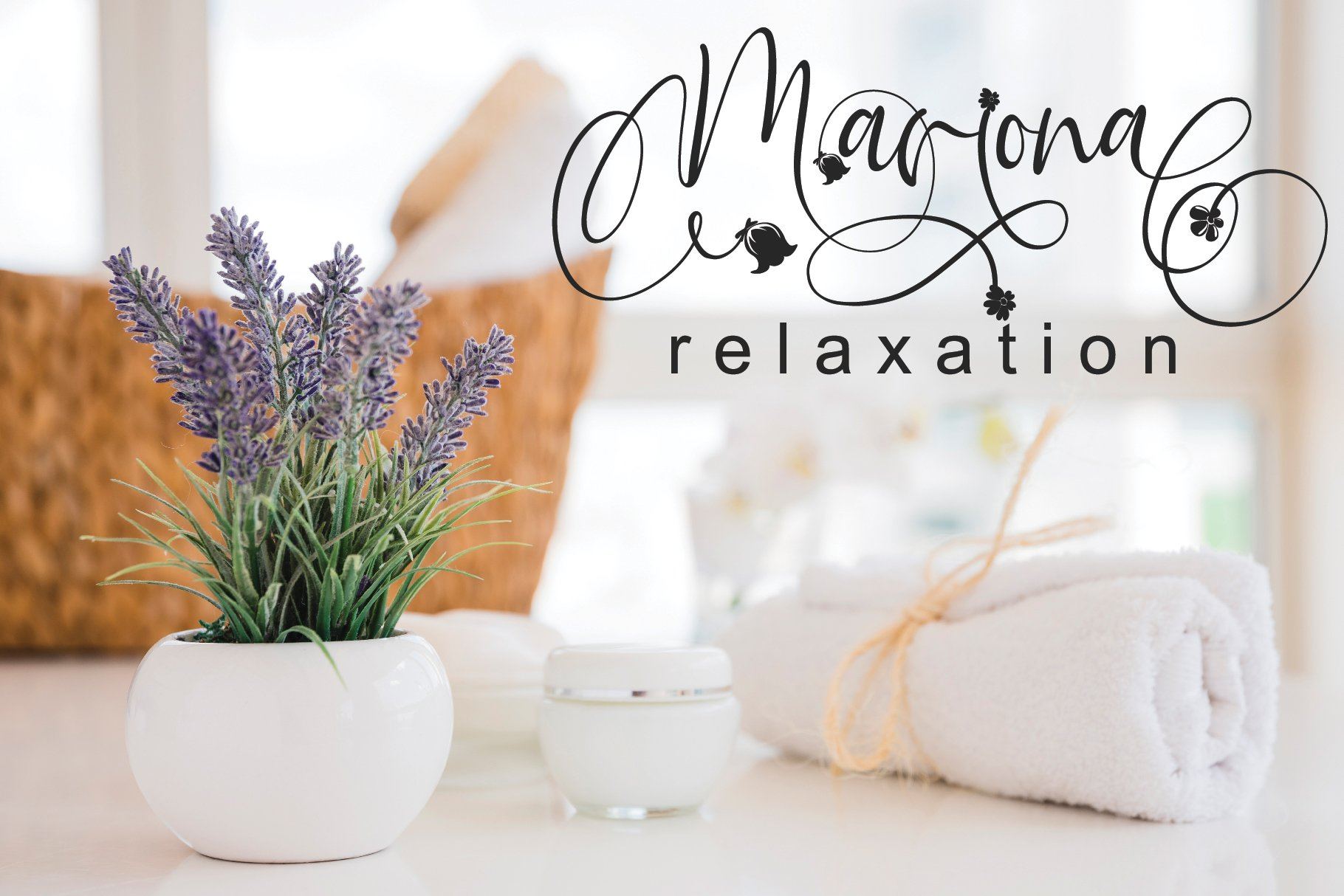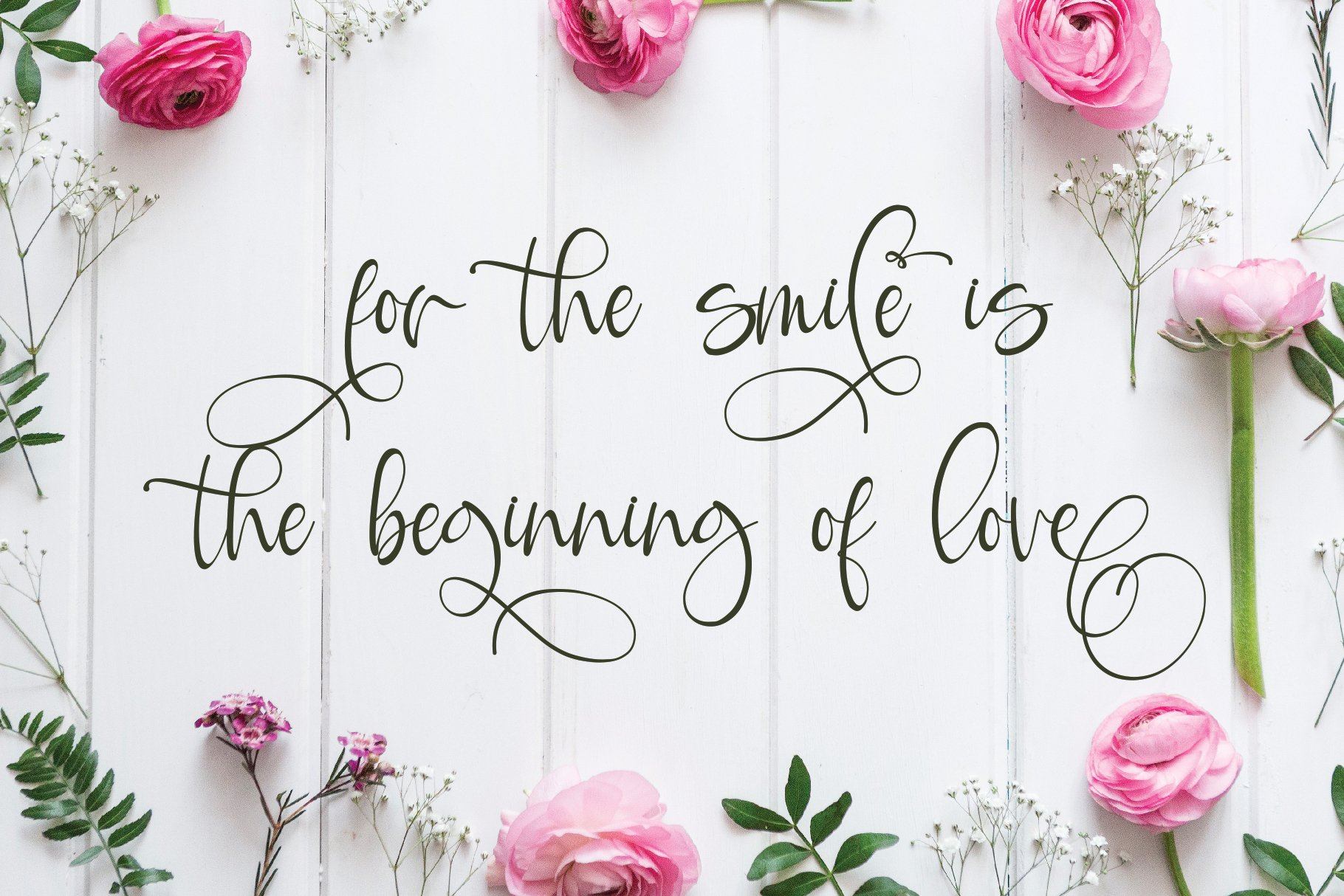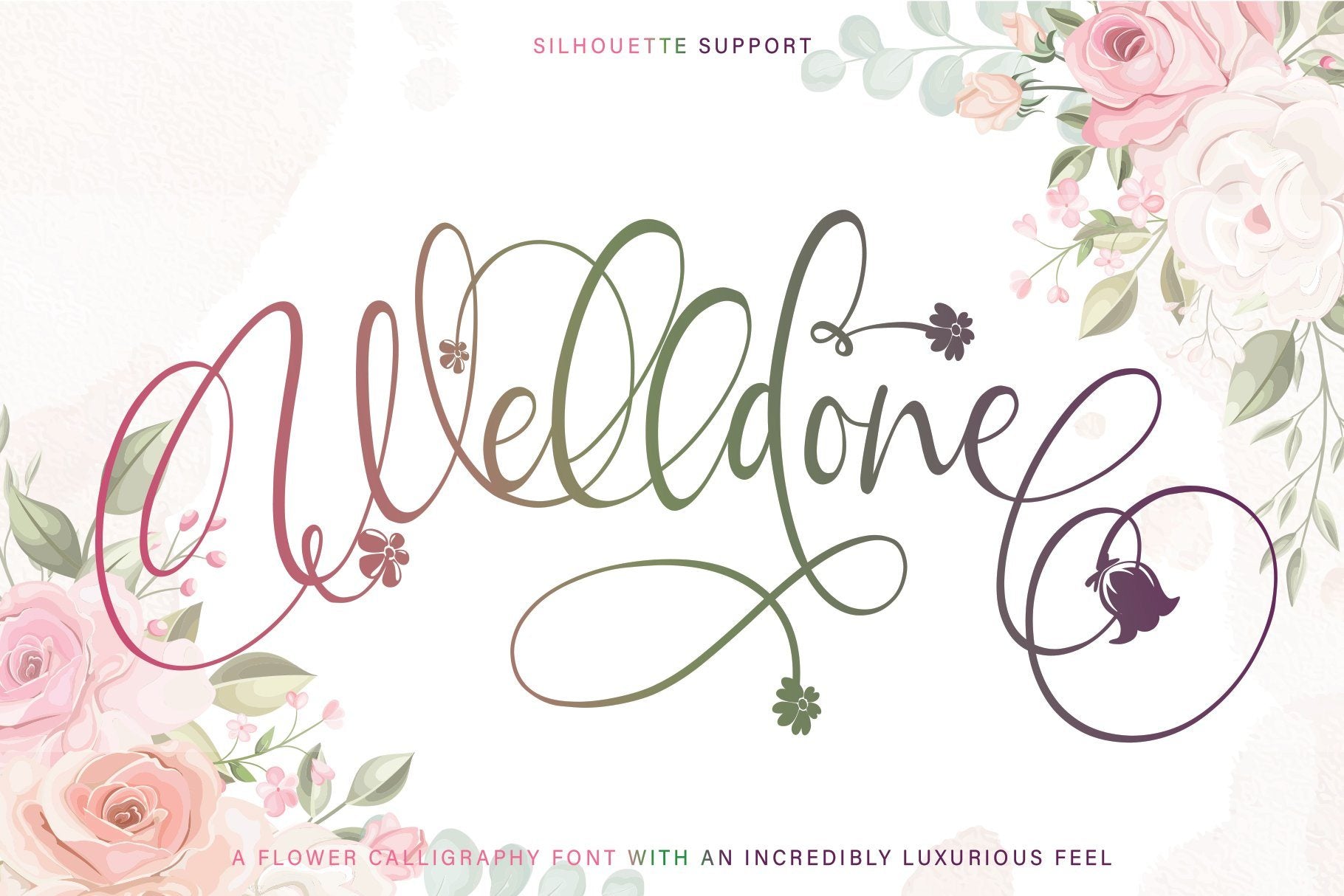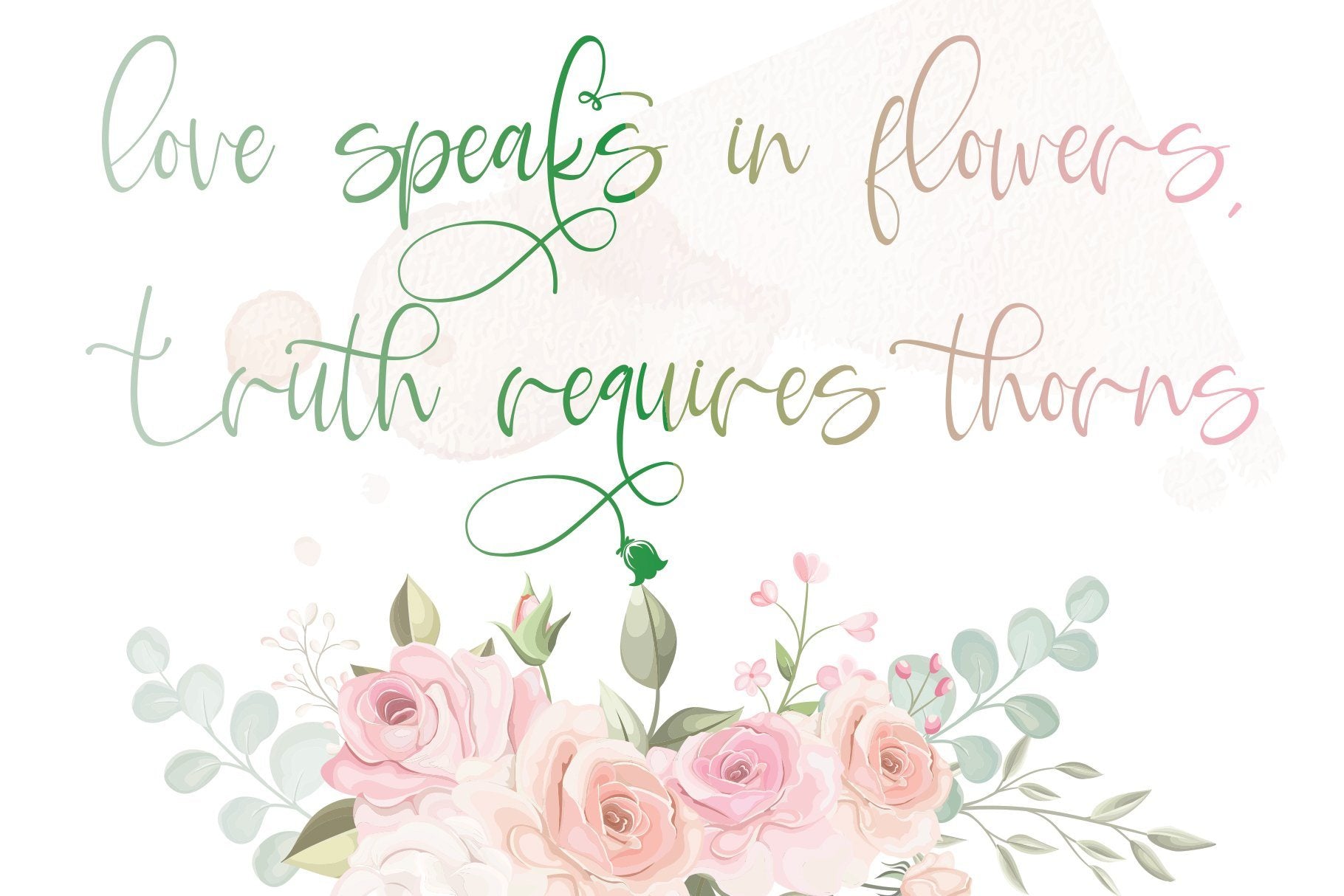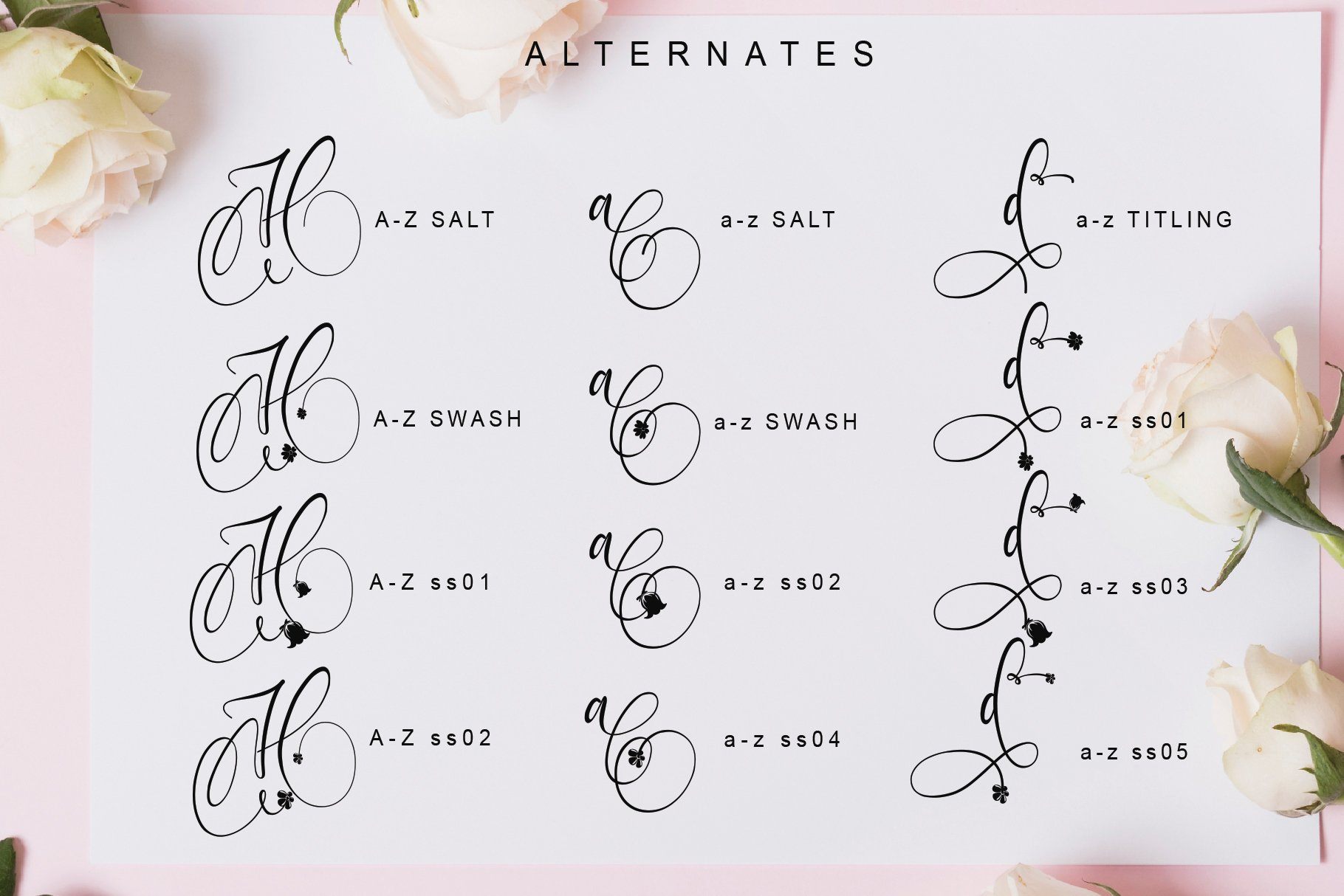
About Welldone
LIMITED OFFER!!! Welldone is a flower calligraphy font with an incredibly luxurious feel. It will add a romantic touch to any crafting project! Get inspired by its unique look! Welldone (TTF, OTF, WOFF) Works both on Mac & PC Simple installations Support silhouette Many features: (A-Z, a-z) Alternate, (A-Z, a-z) Swash, (a-z) titling, Ligature, (A-Z, a-z) ss01, (A-Z, a-z) ss02, (a-z) ss03, (a-z)ss04 & (a-z) ss05 Accessible in the Adobe Illustrator, Adobe Photoshop, Adobe InDesign, CorelDraw, even work on Microsoft Word. Support multilingual; ä ö ü Ä Ö Ü ß ¿ ¡ To access the alternate glyphs, you need a program that supports OpenType features such as Adobe Illustrator CS, Adobe Photoshop CC, Adobe Indesign, and CorelDraw. More information about how to access alternate glyphs, check out this link ( http://goo.gl/ZT7PqK ) This font is PUA encoded which means you can access all of the playful glyphs and swashes with ease! It also features a wealth of special features including alternate glyphs and ligatures. To stay up to date for my latest job, follow me and let’s be friends because there will be many promos. Our other products : BEST SELLER MILEADILA BEAUTIFUL KISSES ANGELIN GAMOS HERTINA JENNIE ANTIKA AURORA BLACK PINK SIGNATURE California Street BESTOWENS FAMILY